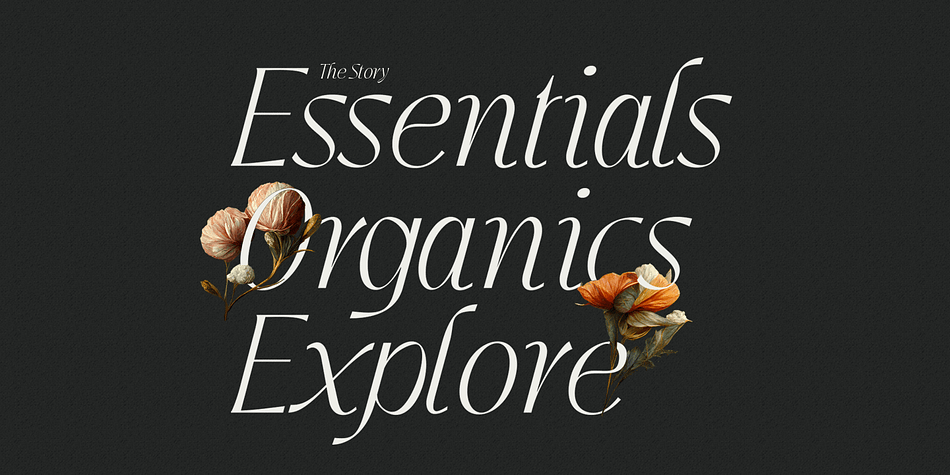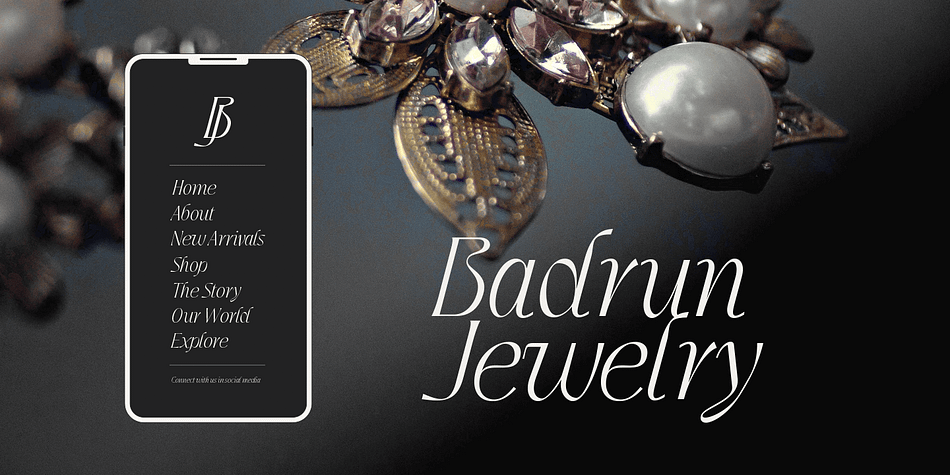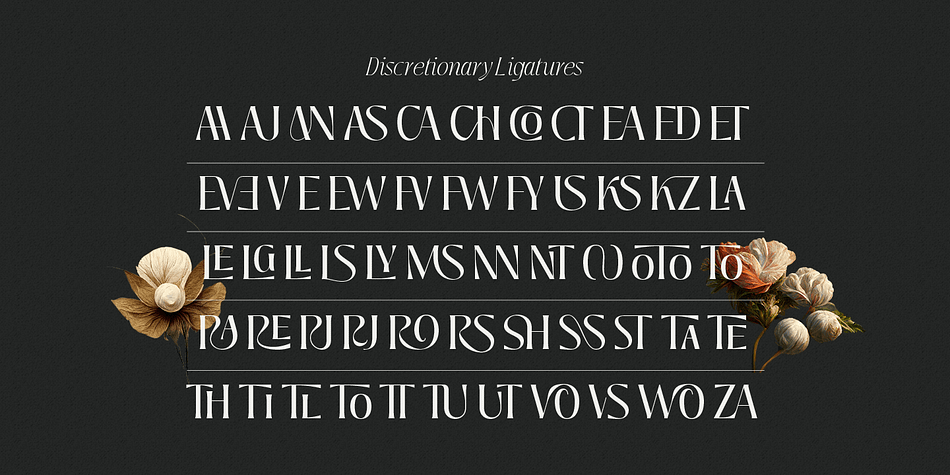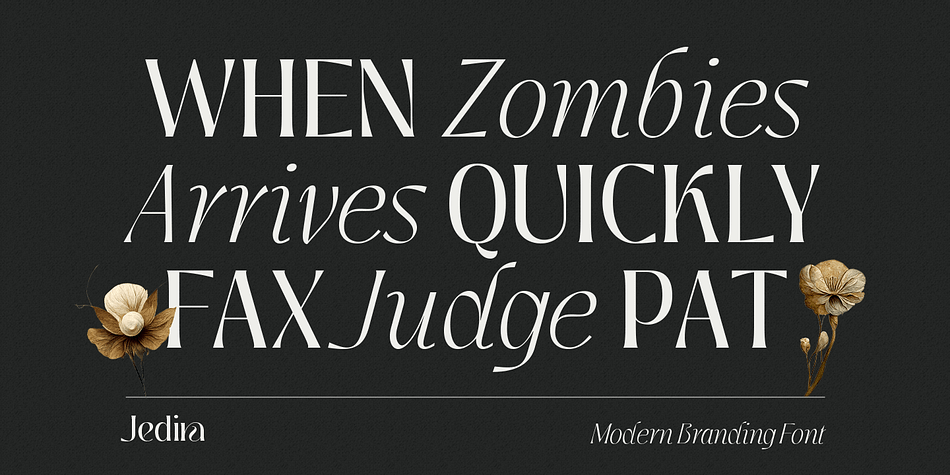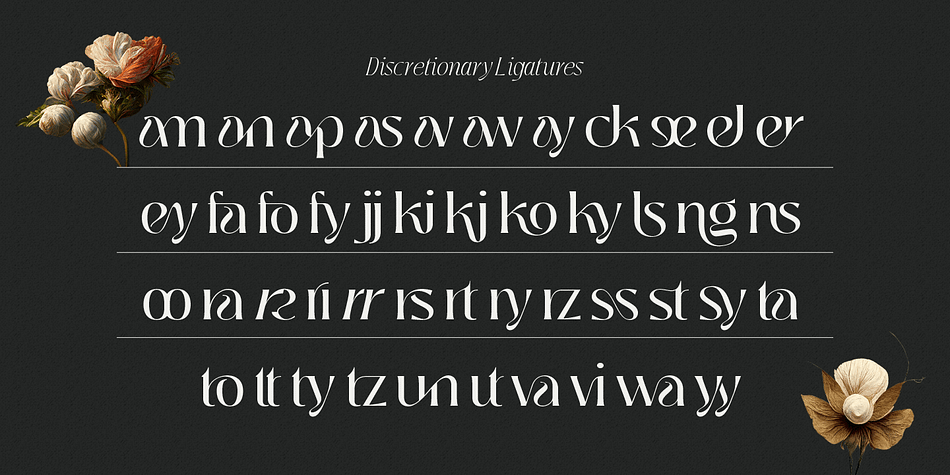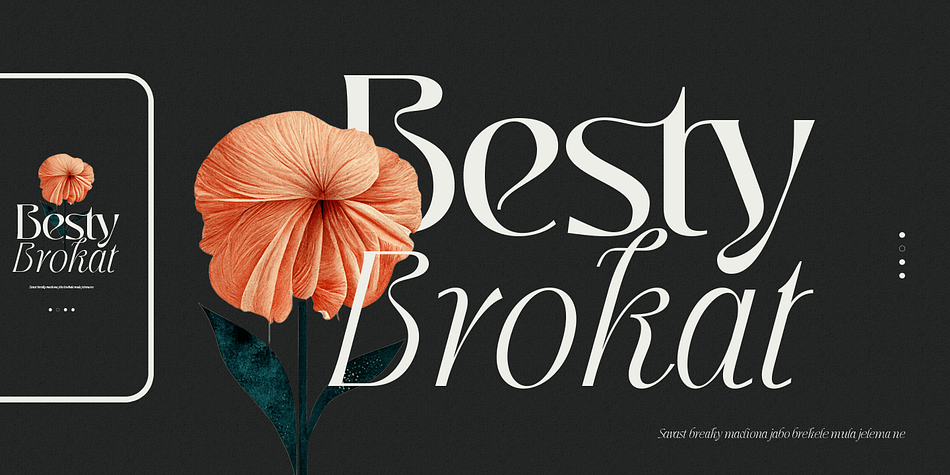
Jedira
Jedira is a display sans font family. This typeface has two styles and was published by Creative Media Lab.
Elegant and classy display font with matching italic and tons of ligatures. This versatile font is best for branding, web design project, logo, fashion related concept, and much more.